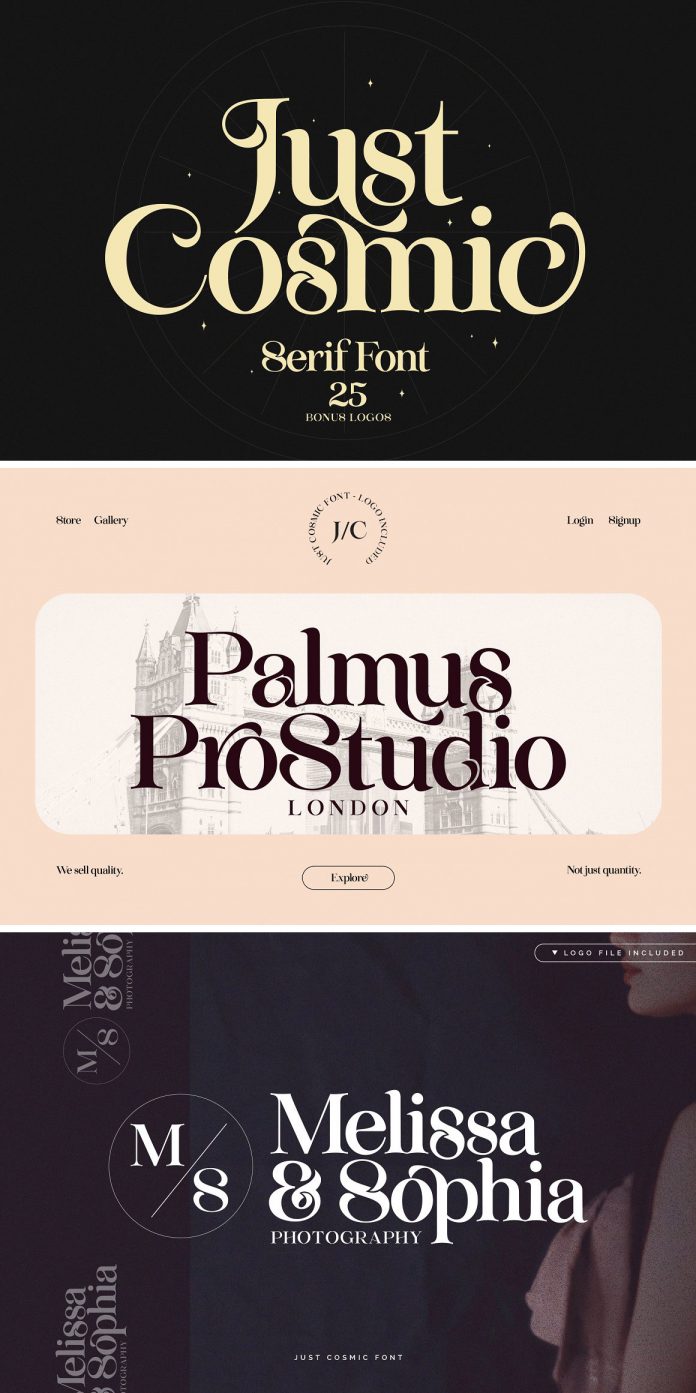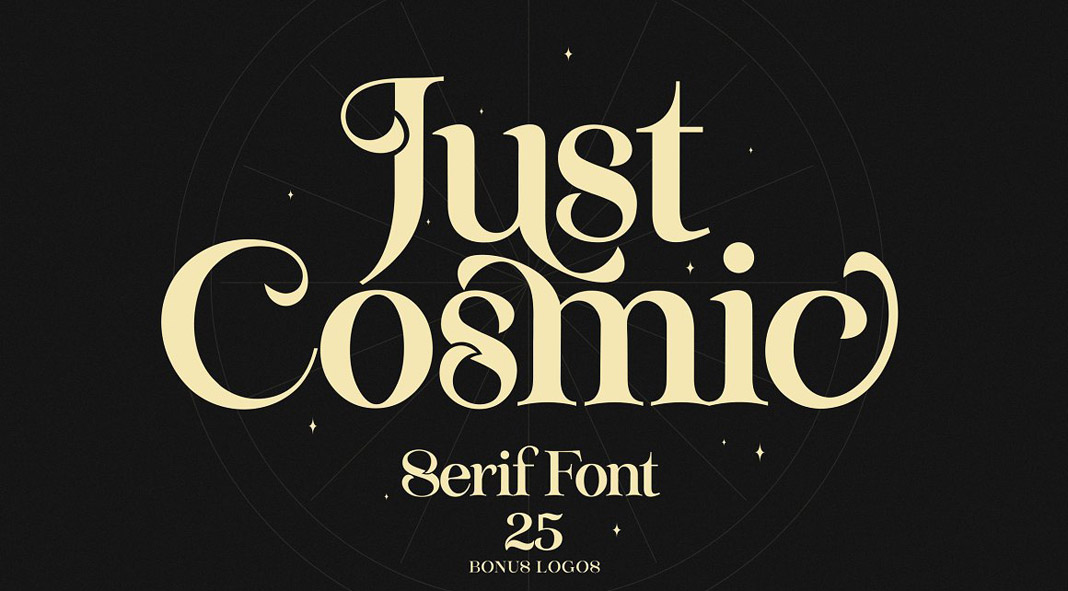
Just Cosmic is a decorative display vintage font created and published by SNIPESCIENTIST.
Created by SNIPESCIENTIST, Just Comic is a vintage-inspired font that comes with stylistic alternates and beautiful cutout ligatures. Furthermore, this display font includes 25 premade logos. All logos are fully editable with graphic design tools such as Adobe Photoshop or Illustrator. Just Cosmic is well suited for different uses ranging from print to web. Just click on the following link to learn more about this unique typeface.